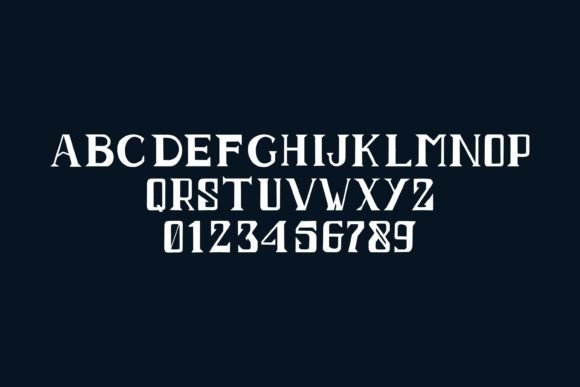
Introduction to Kango Font
Have you ever been stuck on a design project, staring at a blank canvas, trying to find the perfect font to bring your idea to life? It’s that moment of frustration and excitement when the right font can make all the difference. For designers, finding the perfect font can be a game-changer, and that’s where Kango Font comes in.
As a bold and authentic display font, Kango Font is the perfect design resource for any branding project, from logos to t-shirts, posters, and more. Its modern and outstanding design makes it suitable for a wide range of contexts, ensuring that your creative project stands out from the crowd. With its high quality design, Kango Font is a valuable asset for any designer looking to take their work to the next level.
Kango Font
- Designed with a unique aesthetic, making it perfect for modern and trendy creative projects.
Honest Review: Kango Font
As a designer, I’m always on the lookout for high-quality design resources that can elevate my creative projects. Recently, I had the chance to try out the Kango Font, and I’m excited to share my honest review with you.
- ✨ Unique and Creative Design: The Kango Font boasts a distinctive and modern design that sets it apart from other fonts in its class.
- ✨ High Quality: The font is well-crafted and offers crisp, clear lines that make it perfect for digital and print projects.
- ⚠️ Limited Character Set: While the font is well-designed, it’s limited to a relatively small character set, which may be a drawback for designers working on projects that require a wide range of characters.
- ⚠️ Not Ideal for Large Text: The font may not be the best choice for large text, as the lines can become somewhat blurry at larger sizes.
Overall, I’m impressed with the Kango Font’s unique design and high quality. While it may have some limitations, it’s a solid addition to any designer’s toolkit. I’d definitely recommend it for creative projects that require a modern, eye-catching font.
Designing with Kango Font
Tips for Getting the Most Out of Kango Font
Here are a few tips for getting the most out of Kango Font:
- Experiment with different font sizes and styles to create a unique design.
- Combine Kango Font with other design elements, such as graphics and images, to create a visually appealing design.
- Use Kango Font in conjunction with other design resources to create a cohesive and professional-looking design.
Common Use Cases for Kango Font
Kango Font is perfect for a variety of creative projects, including:
- Graphic design and branding.
- Logo design and typography.
- Print design and advertising.
- Web design and digital